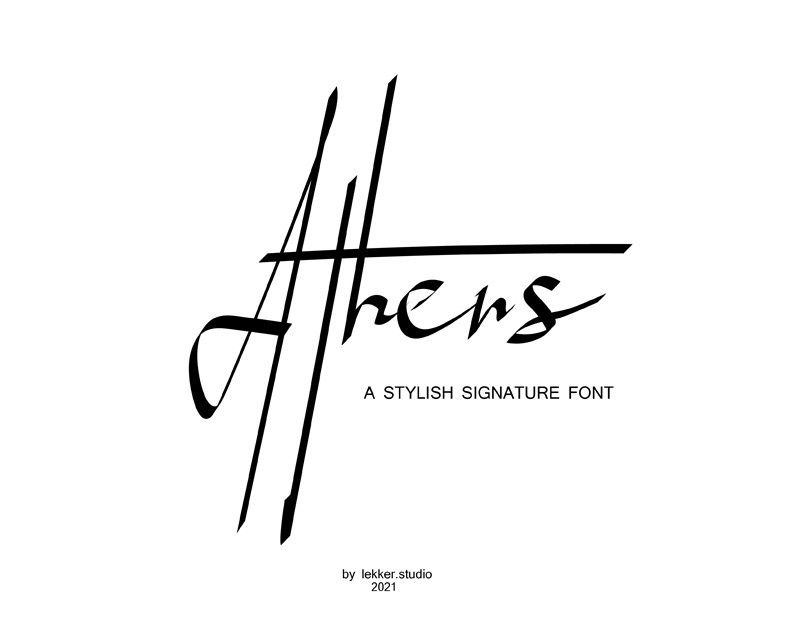
Athens Font
Athens Script Font, This font has an elegant and distinct style that makes it visually different from many other fonts. It makes your design stand out from the rest.This font will give a unique touch to your design. Never put off using this cool font, as it will help you give extra zest to all kinds of work.